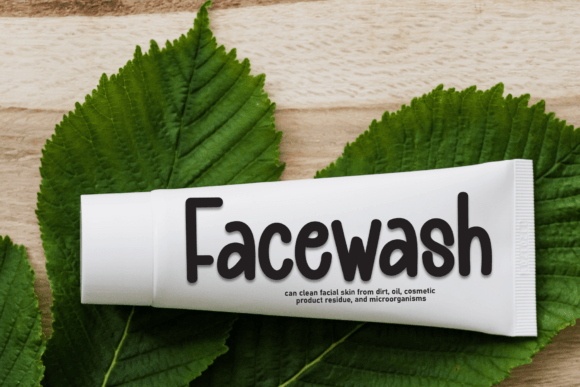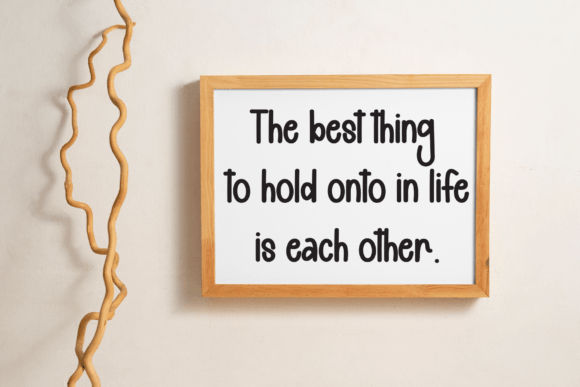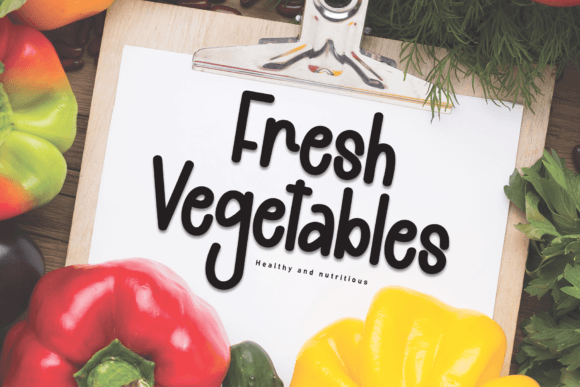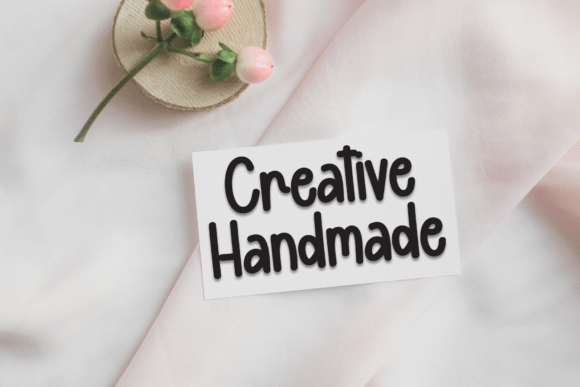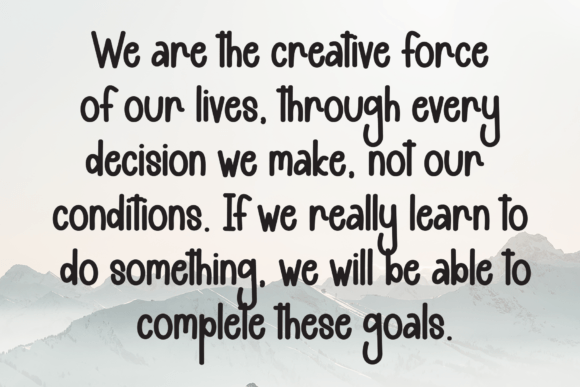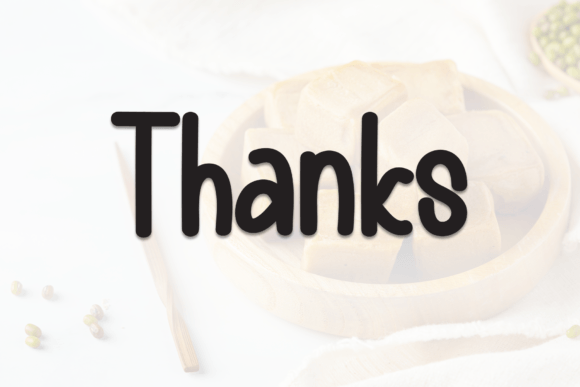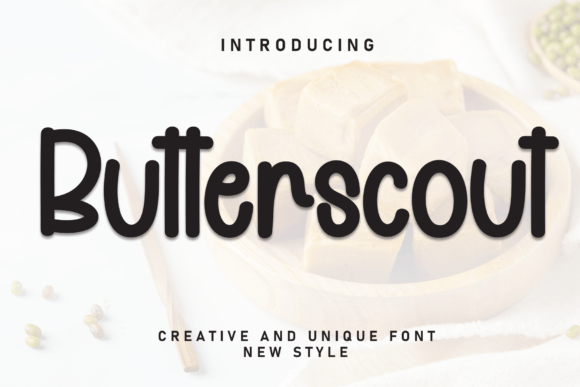
Introducing Butterscout Font: The Playful, Hand-Scripted Font for Your Crafting Projects
Are you looking for a font that embodies playfulness, charm, and a touch of whimsy? Look no further than Butterscout Font, a delightful, affectionate hand-scripted font designed to add a splash of joy to your crafting projects. With its flirtatious flair, this font is perfect for personalizing wedding invitations, crafting heartfelt cards, or any design endeavor that seeks to evoke a sense of amusement and delight.
The Story Behind Butterscout Font
Butterscout Font is more than just a font – it’s an experience. Its meticulously designed curves and lines are infused with a sense of hand-drawn authenticity, making it perfect for crafters and designers who want to add a personal touch to their creations. Whether you’re a professional designer or a DIY crafter, this font is sure to inspire your creativity and bring a smile to your face.
What Makes Butterscout Font So Special?
So, what sets Butterscout Font apart from other fonts? Here are just a few features that make it a standout:
- Hand-scripted charm: Butterscout Font is a true hand-scripted font, with each letter and character carefully crafted to evoke a sense of whimsy and playfulness.
- Flirtatious flair: This font has a certain je ne sais quoi – a flirtatious flair that adds a touch of sophistication and elegance to any design.
- Perfect for crafting projects: Whether you’re making wedding invitations, birthday cards, or other crafts, Butterscout Font is the perfect choice.
Using Butterscout Font in Your Crafting Projects
Butterscout Font is incredibly versatile, and can be used in a wide range of crafting projects. Here are just a few ideas to get you started:
- Wedding invitations: Add a touch of romance and whimsy to your wedding invitations with Butterscout Font.
- Birthday cards: Create one-of-a-kind birthday cards that are sure to delight the recipient.
- DIY crafts: Use Butterscout Font to add a personal touch to your DIY crafts, such as scrapbook pages, journal entries, and more.
- Signs and posters: Create eye-catching signs and posters that are sure to grab attention.
Tips for Getting the Most Out of Butterscout Font
Here are a few tips for getting the most out of Butterscout Font:
- Experiment with different colors: Butterscout Font looks great in a variety of colors, so don’t be afraid to experiment and find the perfect hue for your project.
- Mix and match with other fonts: Butterscout Font pairs well with a variety of other fonts, so feel free to get creative and mix and match to find the perfect combination.
- Use it sparingly: While Butterscout Font is certainly eye-catching, it can be overwhelming if used too much. Use it sparingly to add a touch of whimsy and charm to your designs.